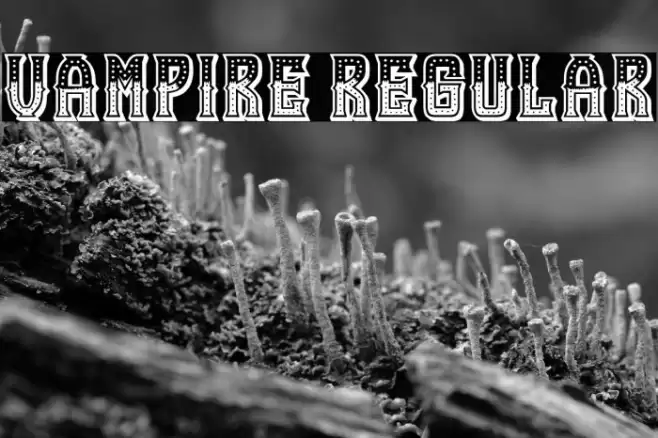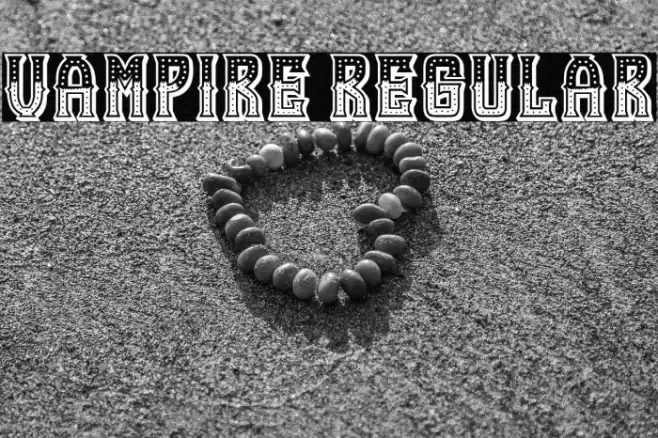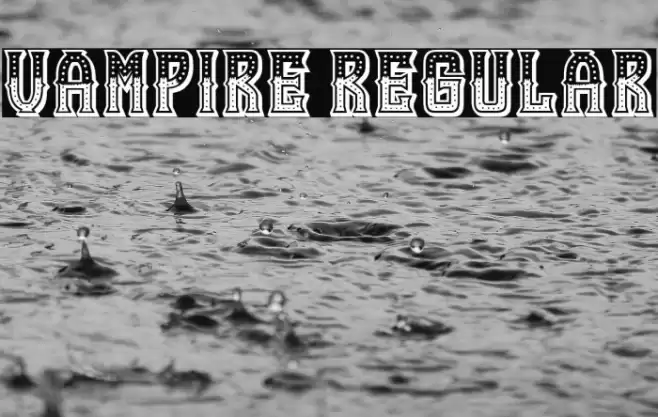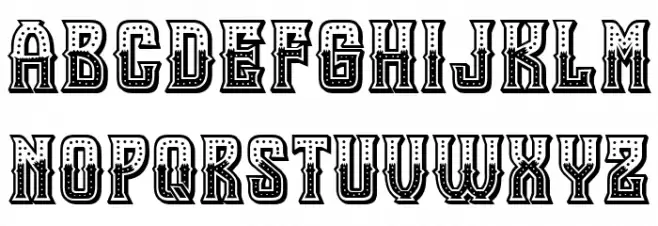
Vampire Regular Font
Vampire Regular Description
This font features a bold, decorative style with intricate detailing and a vintage flair. Each character is outlined with a thick border and filled with dotted patterns, giving it a unique, eye-catching appearance. The uppercase letters are designed with a strong, structured form, while the overall aesthetic is reminiscent of classic Western or circus themes. The font's boldness and decorative elements make it ideal for standout designs that require a touch of nostalgia and flair.
A bold, decorative font with vintage detailing and a Western-inspired style from Uncategorized fonts.
- Font: Vampire Regular
- Proposed Projects: Perfect for poster designs, event invitations, themed parties, or branding that requires a vintage or Western aesthetic.
- Contrast: High
- Overall Style: Vintage